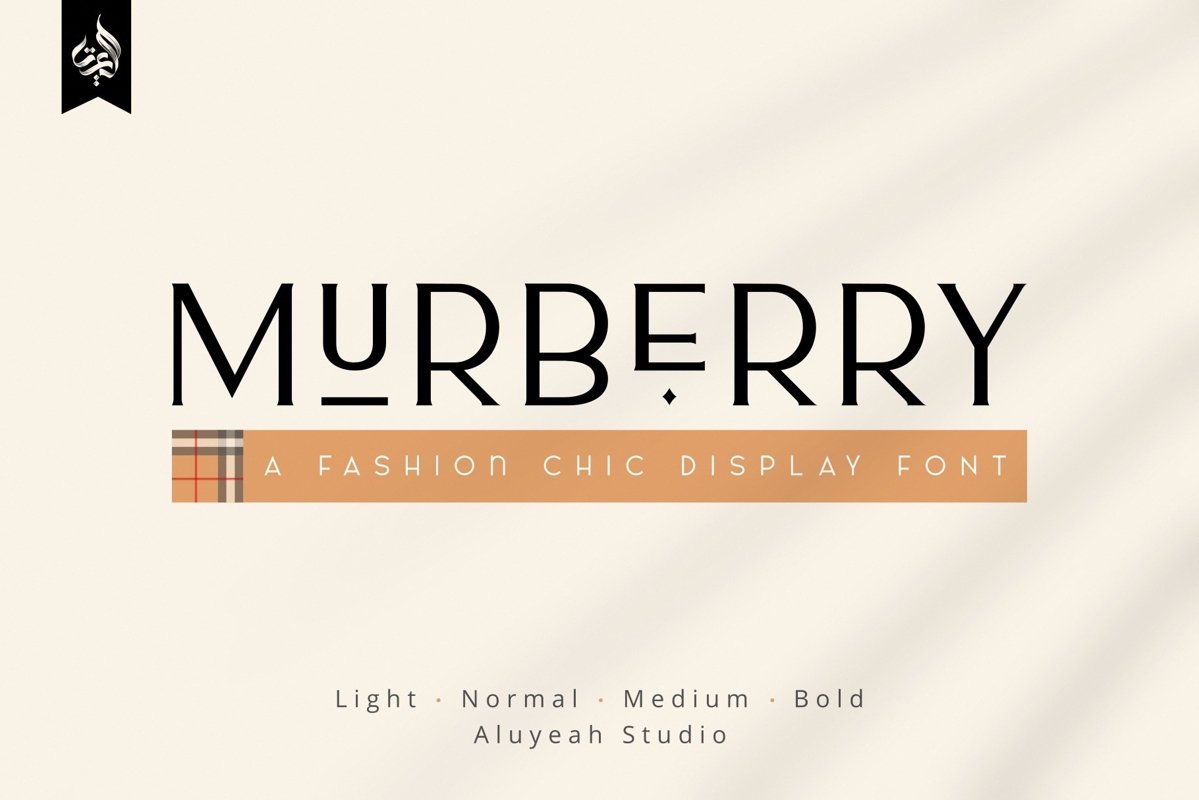
AL Murberry
Bonjour! Murberry a fashion chic display font. This font was carefully crafted and inspired by one of leading fashion brand in the world. In general, it creates a luxurious and elegant look in design.
Coming to you with 50+ luxury ligature and 30+ alternate in 4 weight - light, normal, medium and bold - to create a perfectly beautiful, classy, chic, elegant, and luxurious design.
Use this font for your fashion brand, resort, cosmetics, invitations, wedding, branding, packaging, magazines, boutique, social media, restaurant, spa, greeting cards, headers, headline and many more.